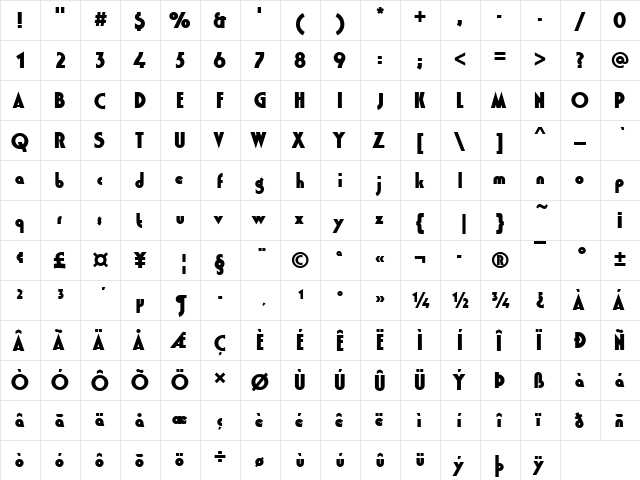
Washington Becker Black Regular
Design Context for Washington Becker Black Typeface
Washington Becker Black takes a measured approach to typography — its balanced proportions and neutral character make it a reliable workhorse for both digital and print work.